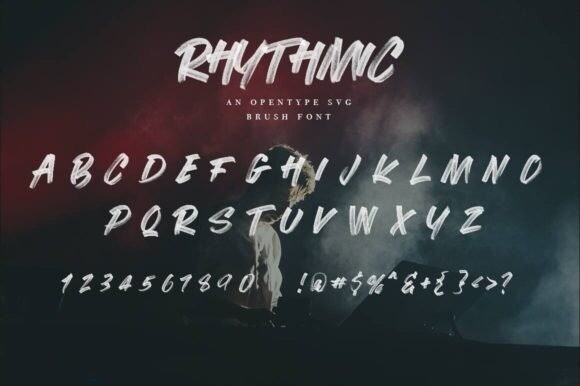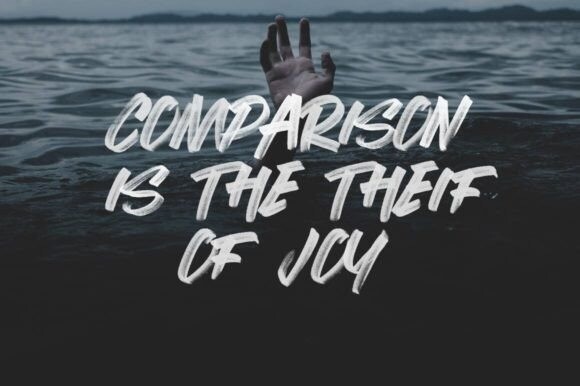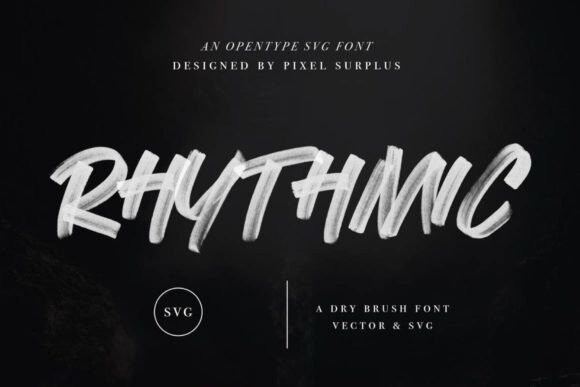
Rhythmic Font
Rhythmic Font is an all-caps hand-drawn brush marker font. It retains the natural transparency created by the brush marker resulting in a hyperrealistic look.